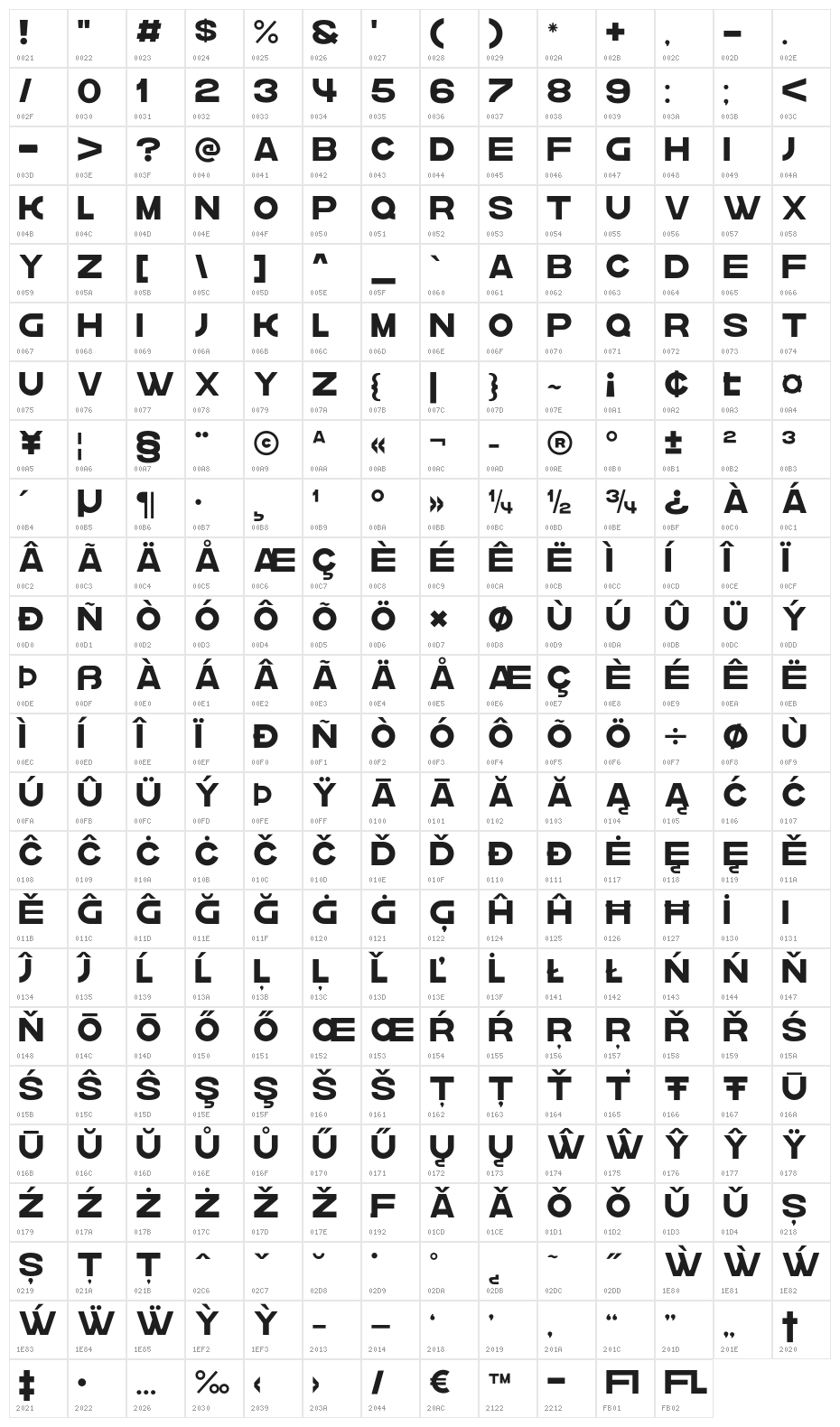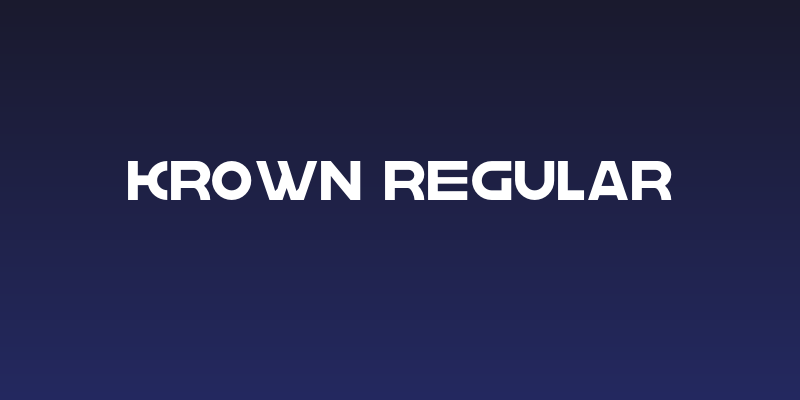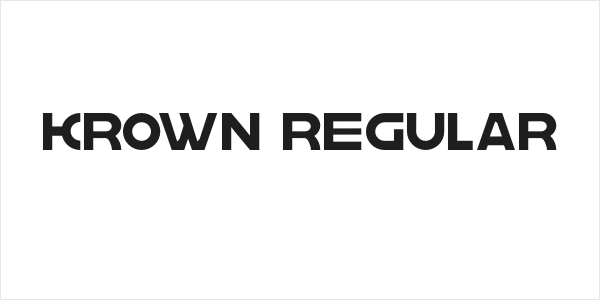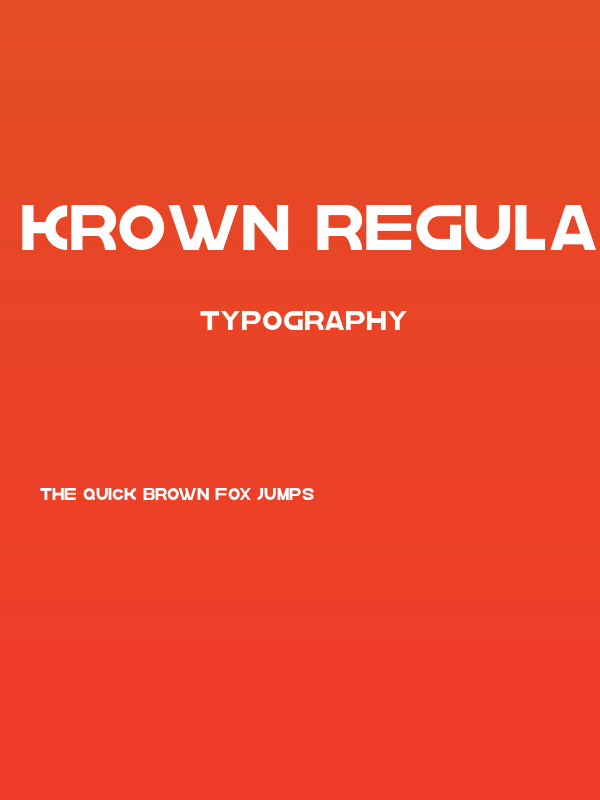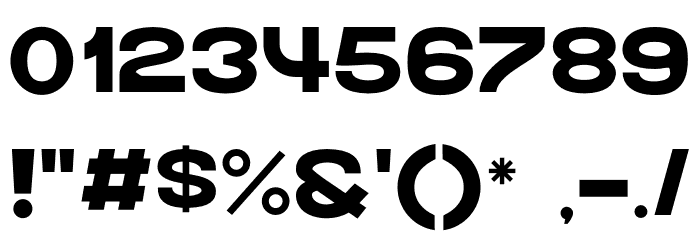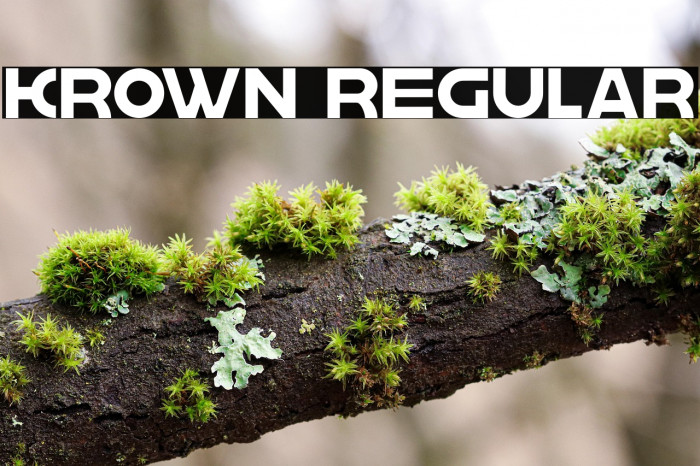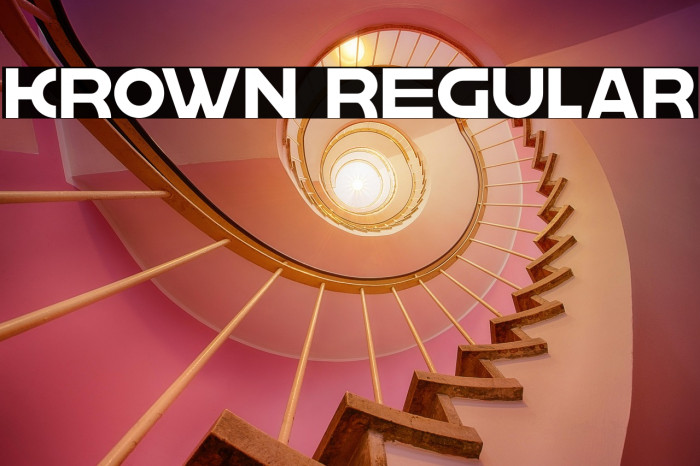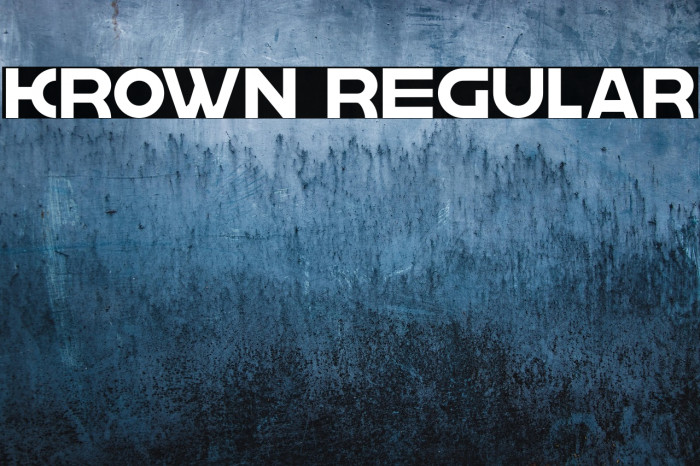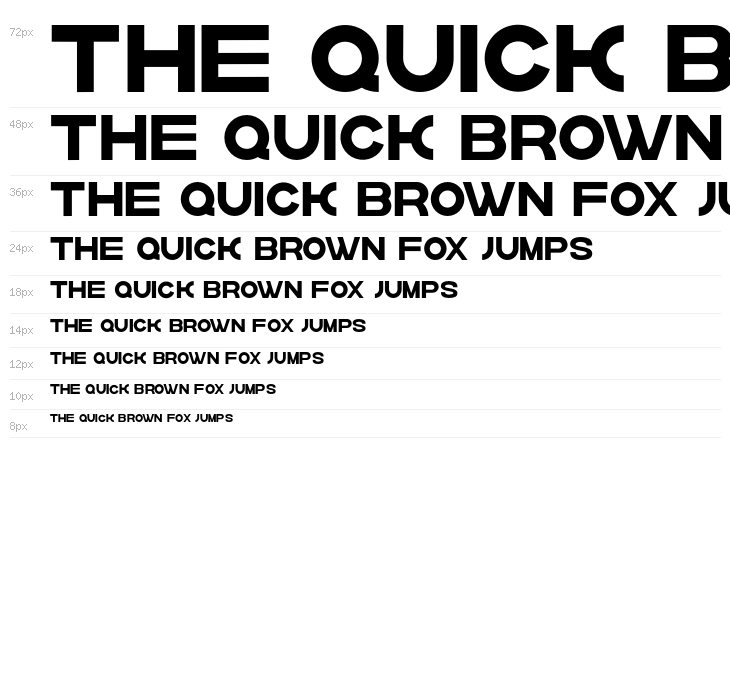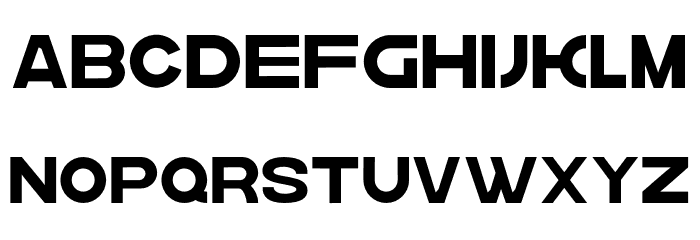
krown Regular Font
krown Regular Description
This font features a bold and modern design with a strong geometric structure. The characters are crafted with a uniform thickness, giving them a solid and impactful appearance. The uppercase letters are particularly striking, with sharp angles and clean lines that convey a sense of strength and stability. The lowercase letters maintain the same boldness, ensuring consistency throughout the typeface. The numerals are equally robust, designed to stand out with clarity. Special characters are included, maintaining the same bold style, making this font versatile for various uses.
| Proposed Projects | Ideal for branding, headlines, posters, and logos where a strong and modern aesthetic is desired. |